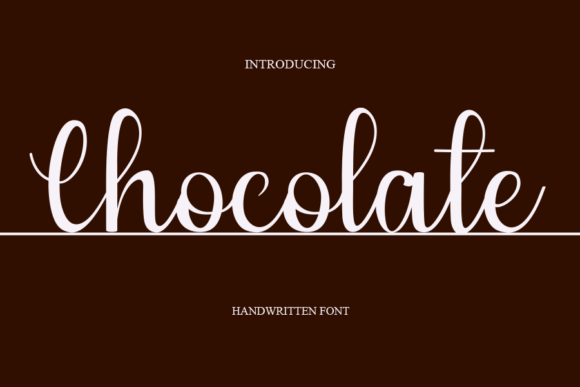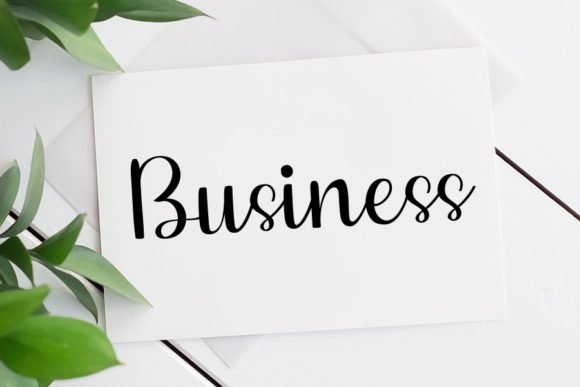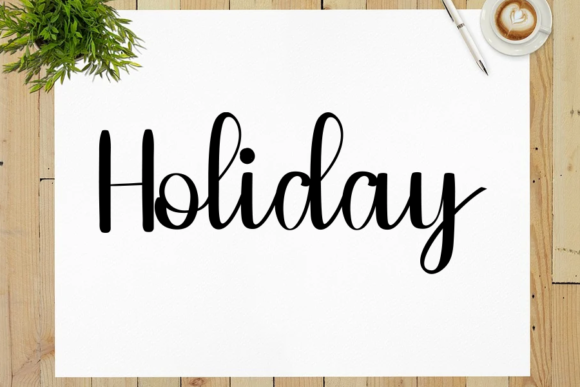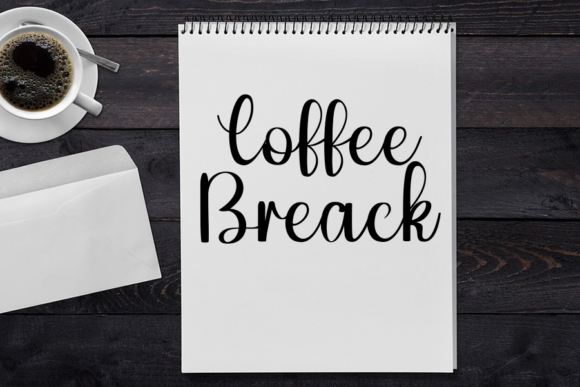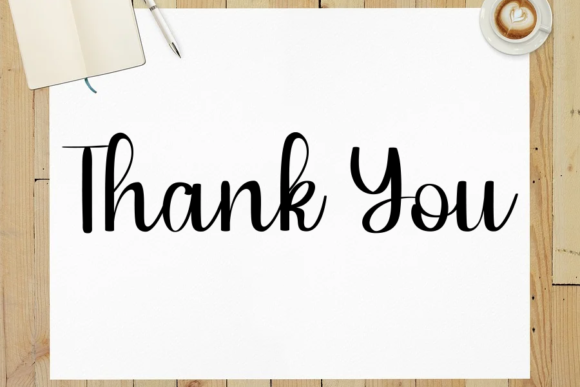
Chocolate Font
About Chocolate Font
ChocolateĀ is an enchanting handwritten font. This versatile script font has a wide spectrum of applications ranging from greeting cards to headlines and is guaranteed to add a romantic feel to your next project.